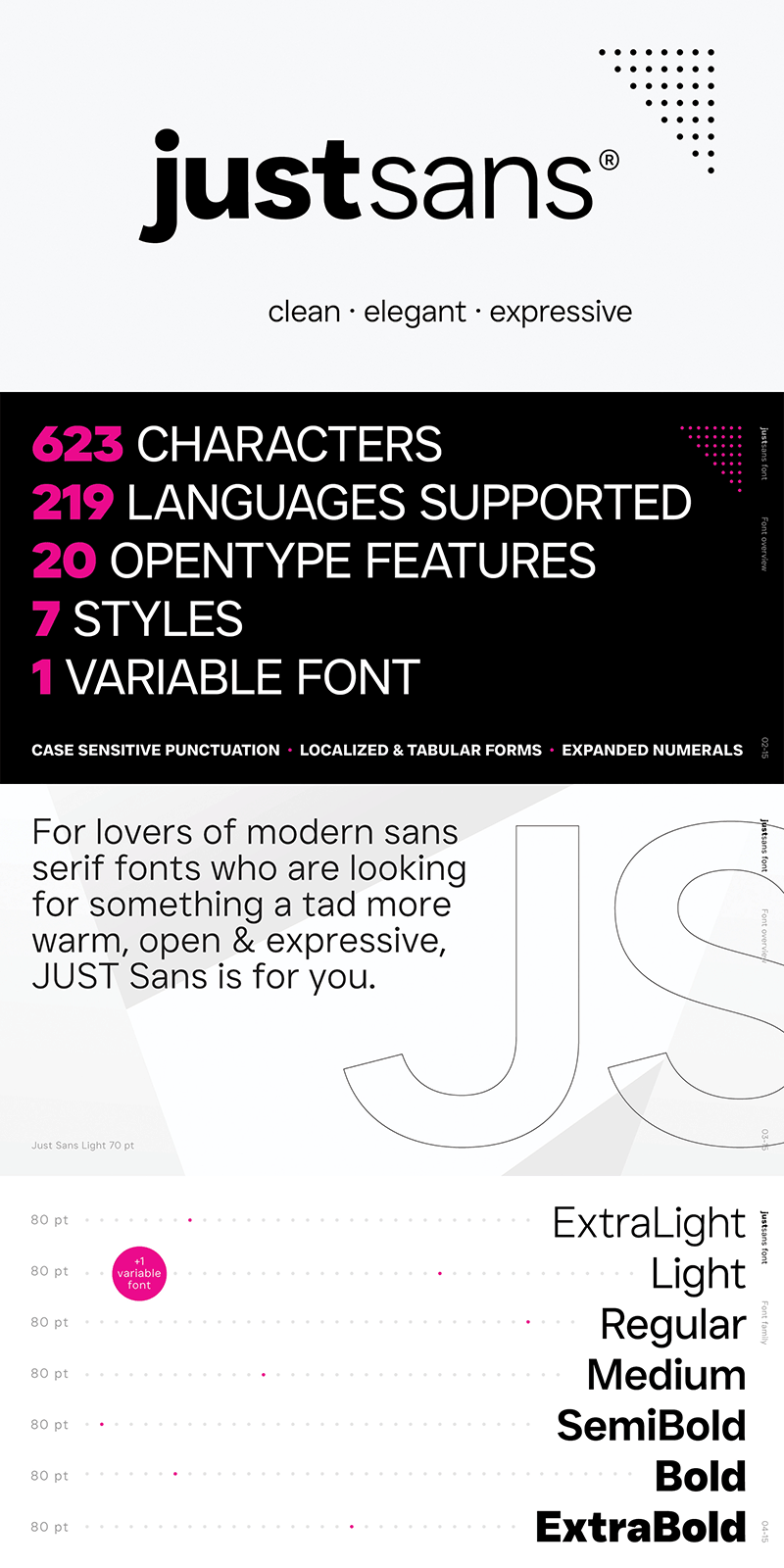
Font name: | Just Sans |
Author: | Jacob Cass |
Note by Jacob Cass | |
JUST Sans is a highly versatile clean minimal typeface with endearing, modernist warmth, geometric legibility, and a distinctive friendly bite. ExtraBold + Regular Weights are FREE. MORE WEIGHTS ARE AVAILABLE HERE: https://justsans.com/ - JACOB CASS https://justcreative.com |